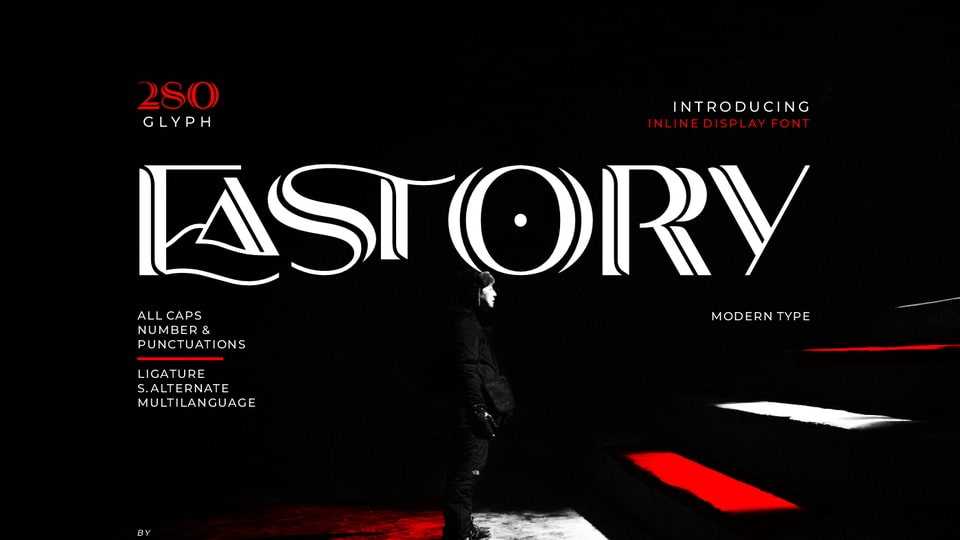
Download Eastery font, a display typeface, with an inline line, and a combination of thick and thin letters. With a bold shape and a combination of thin and thick lines to make it look beautiful.